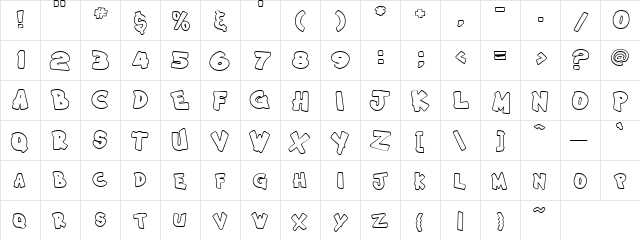
Scrap Tubby Regular
Design Context for Scrap Tubby Typeface
Scrap Tubby is a composed and adaptable typeface that performs quietly and consistently across a wide range of design contexts.
Pro Tip: Use Scrap Tubby in both headline and body roles to test its range before committing to a single application.